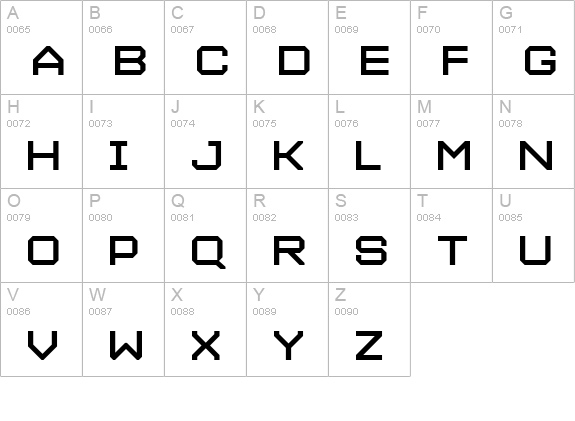
Maetl Bold Font Details
Maetl Bold is a strong, high-contrast variant in the Maetl typeface family \xE2\x80\x94 well suited to headlines, attention-grabbing titles, and strong calls-to-action.
Maetl Bold is a captivating and visually striking font that effortlessly combines modernity with a touch of elegance. Its bold and thick letterforms exude confidence and make a bold statement. Designed with meticulous attention to detail, Maetl Bold is perfect for creating captivating headlines, eye-catching logos, and impactful designs. With its strong presence and clean lines, Maetl Bold commands attention and ensures that your message will be seen and heard. Whether you're designing for a brand, a magazine, or a website, this font will add a touch of sophistication and professionalism to your project. But what truly sets Maetl Bold apart is that it is free. Yes, you read that right. This exceptional font is available for free download at FontsMarket.com. Now, you can elevate your designs without breaking the bank. So why wait? Download Maetl Bold today and let your creativity soar. With this font at your fingertips, you'll have the power to create stunning visuals that leave a lasting impression. Whether you're a professional designer or a passionate hobbyist, Maetl Bold will become an invaluable tool in your creative arsenal. Don't miss out on this incredible opportunity to enhance your designs with this remarkable font. Get Maetl Bold now and let your imagination run wild.